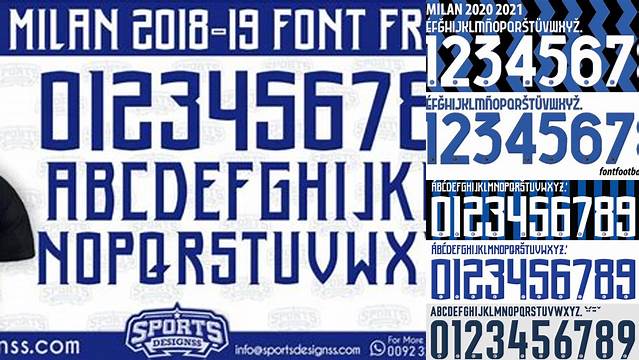
Inter Milan Font: Free Downloads & Style Guide
Hey guys, ever wondered how to get your hands on that distinctive Inter Milan font? You know, the one that graces the back of player jerseys, pops up in official club graphics, and generally just screams "Forza Inter!" Well, you're in the right place! We're diving deep into the world of the Inter Milan typeface, exploring how you can find, download, and even use these iconic fonts to bring a touch of the Nerazzurri to your own projects. Whether you're a designer, a superfan creating fan art, or just curious about the club's visual identity, understanding the various Inter Milan fonts is super important. It's more than just letters and numbers; it's a piece of the club's history and modern branding.
Exploring the Official Inter Milan Font Style
When we talk about the official Inter Milan font style, guys, we're not just discussing any random typeface; we're delving into a crucial element of the club's visual identity that has evolved over the years. The official Inter Milan font style is meticulously chosen to reflect the club's values, history, and forward-thinking spirit. It’s a design decision that impacts everything from official club announcements and social media graphics to, most prominently, the names and numbers emblazoned on the players' iconic blue and black striped jerseys. This isn't a one-size-fits-all situation; sometimes the club uses a specific font for its main branding, another for its marketing campaigns, and yet another, often bespoke, font for its matchday kits. The overarching goal, however, remains consistent: to convey professionalism, strength, and a touch of modern elegance that aligns with one of Europe’s most storied football clubs. For instance, the font used in the club's official logo or communications tends to be a clean, modern sans-serif, prioritizing readability and a sleek aesthetic. These choices are made by expert design teams who understand the power of typography in brand recognition and emotional connection. Think about it: when you see those distinct letters and numbers, you instantly associate them with Inter Milan, right? That's the power of a well-chosen and consistently applied official font style. It reinforces the brand, makes it instantly recognizable, and becomes part of the shared visual language among fans. So, understanding the official Inter Milan font style means appreciating the deliberate design decisions that contribute to the club's powerful visual presence, extending its legacy beyond the pitch and into the realm of graphic design and branding. It's truly a fascinating aspect of modern football branding, guys, and one that resonates deeply with the club's dedicated fanbase around the world.
Unveiling the Specific Inter Milan Typeface Used on Kits
Let's get down to the nitty-gritty, folks, and talk about the specific Inter Milan typeface used on kits. This is where many of you, especially the die-hard fans and kit collectors, probably focus your attention. The font used for player names and numbers on the back of the Inter Milan jerseys is often a unique design, specifically created or customized for that particular season or a series of seasons. It’s not usually a generic, off-the-shelf font you’d find easily on popular font sites. These kit fonts are engineered not only for aesthetic appeal but also for practical considerations. Think about it: they need to be highly readable from a distance, durable enough to withstand the rigors of professional football, and compliant with league regulations (like Serie A or UEFA competitions). The design often incorporates elements that reflect current trends in sports typography, but always with a nod to Inter’s identity. For example, some seasons might feature a bolder, more angular font, while others might opt for a sleeker, slightly rounded look. These subtle changes, while seemingly small, contribute significantly to the overall aesthetic of the kit. The specific Inter Milan typeface for kits often becomes a recognizable part of that season's identity, evoking memories of key matches, legendary players, and iconic moments. Designers put a lot of thought into these typefaces, ensuring they fit seamlessly with the jersey’s design, sponsor logos, and club crest. It's a harmonious blend of form and function. While exact, official replicas of these fonts for personal use can be tricky to find for free due to licensing and proprietary design, there are often fantastic fan-made recreations that capture the essence perfectly. These fan-made versions allow enthusiasts and graphic designers to emulate the authentic look, bringing that genuine Inter Milan kit aesthetic to their own creative projects, which is super cool for those looking to replicate the authentic matchday experience in their designs. It's a testament to the power of design in football, creating something truly distinctive.